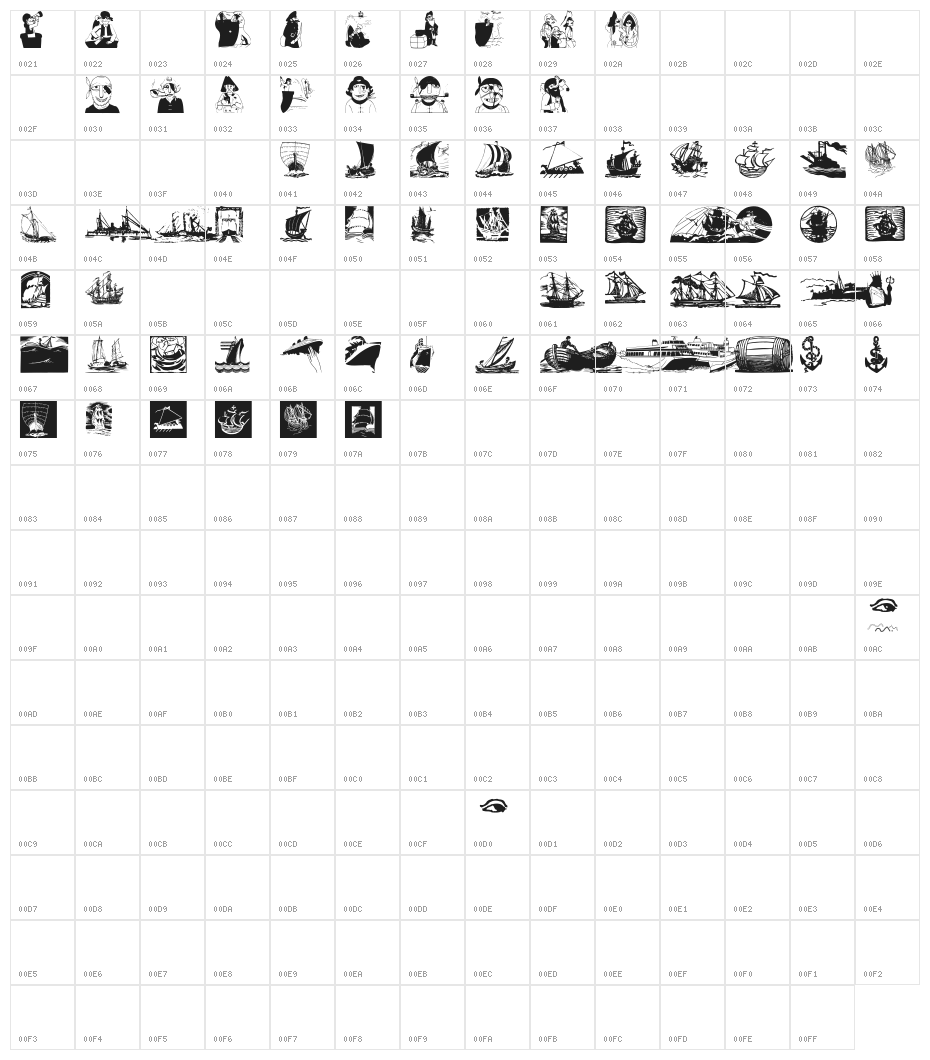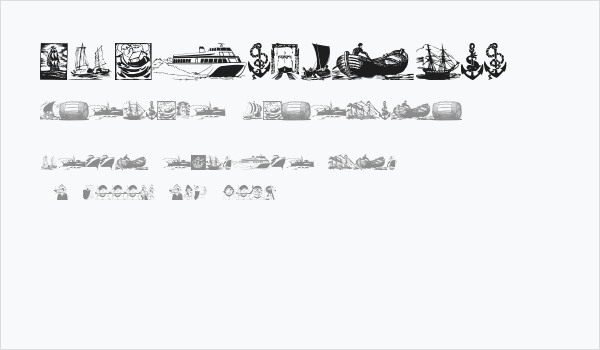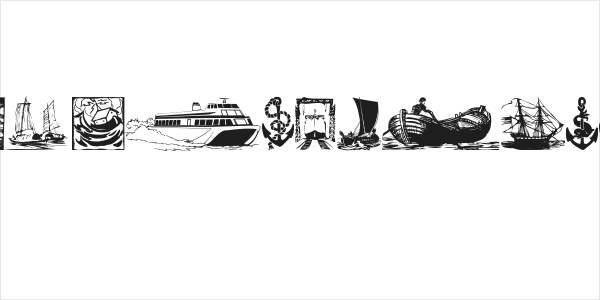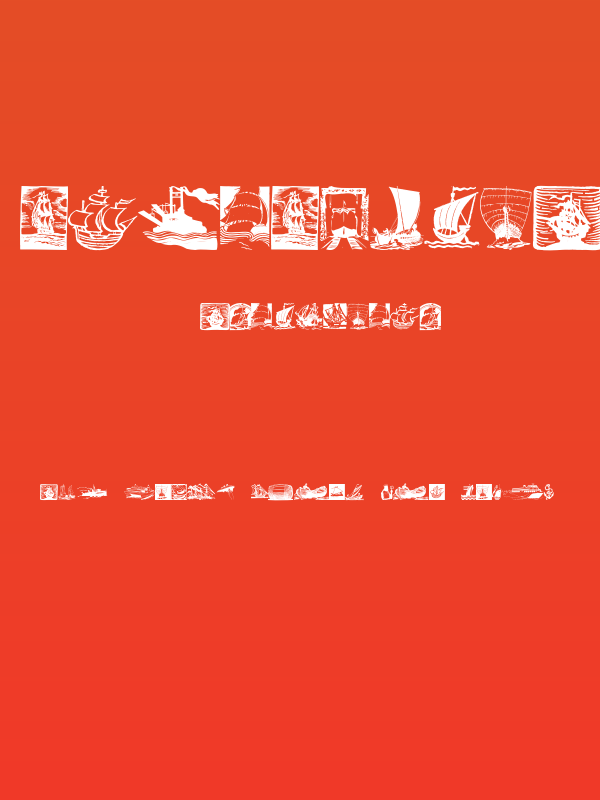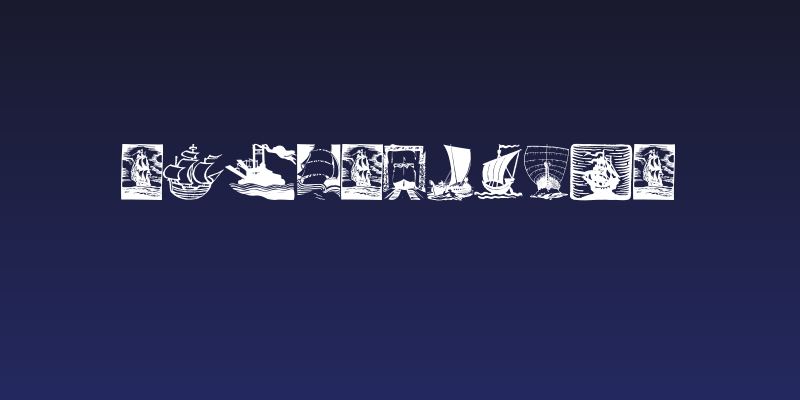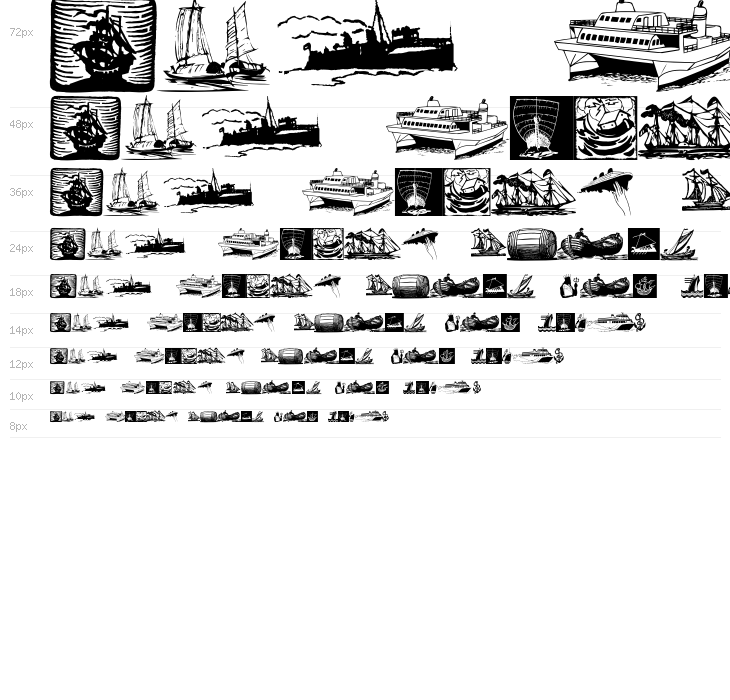
ShipsNBoats Font
ShipsNBoats Description
A highly decorative and illustrative font featuring detailed drawings of ships, boats, nautical symbols, and cartoonish sailors and pirates. Each character is represented by a unique maritime-themed illustration, making the set visually engaging and playful.
| Overall Style | Decorative, Playful, Nautical |
| Use Case | Illustrative elements, Themed graphics, Decorative initials |
| Proposed Projects | ChildrenΓ’β¬β’s books, pirate party invitations, educational materials, themed posters, scrapbooking, and maritime event branding. |